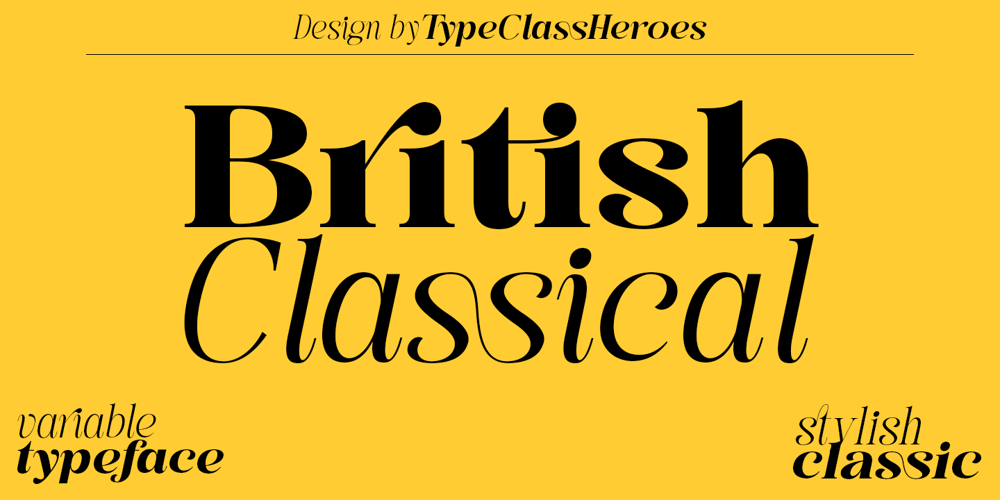
British Classical Font Family was designed by Suandana ipandemade and published by TypeClassHeroes. British Classical contains 36 styles and family package options. Really excited to introduceBritish Classical and British Classical Neue is a Classic serif family. It’s clean and smooth with 9 variable weight combining the regular and italic and much alternative inside. Suitable to create any branding, product packaging, invitation, quotes, t-shirt, label, poster, logo etc.If you need anything else just shoot me on email at: Suandana_Ipandemade@hotmail.comHope you enjoy it.